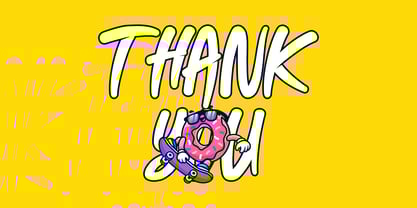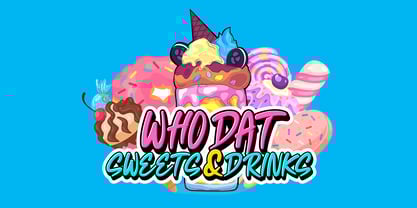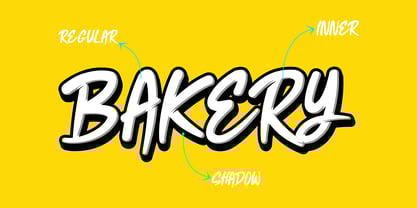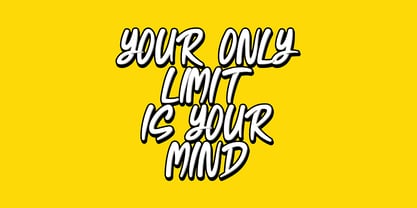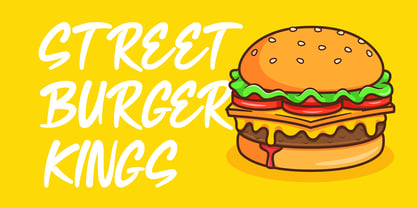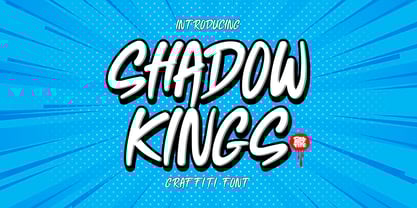
Shadow Kings
by Sipanji21
The Shadow Kings Font Family was designed by Sipanji and published by Sipanji21. Shadow Kings contains 3 styles and family package options. More about this family
Shadow Kings is a sleek and edgy thin graffiti font that brings an urban and modern touch to your designs. With its solid and outlined styles, this font offers versatility for layering and creating striking visual effects. Inspired by street art and graffiti culture, Shadow Kings blends bold creativity with a minimalist, sharp aesthetic.
Perfect for posters, streetwear branding, digital art, hip-hop designs, album covers, and more, this font adds an authentic graffiti vibe while maintaining a clean and stylish look. Whether you're aiming for a raw, urban feel or a contemporary artistic expression, Shadow Kings delivers the perfect balance of rebellion and refinement.
Designers: Sipanji
Foundry: Sipanji21